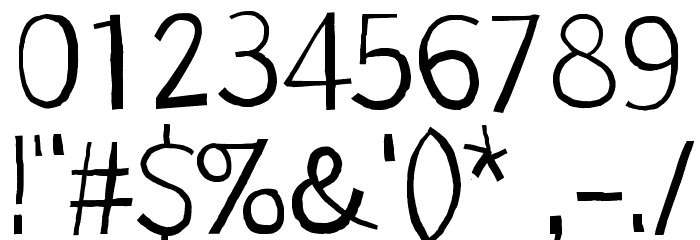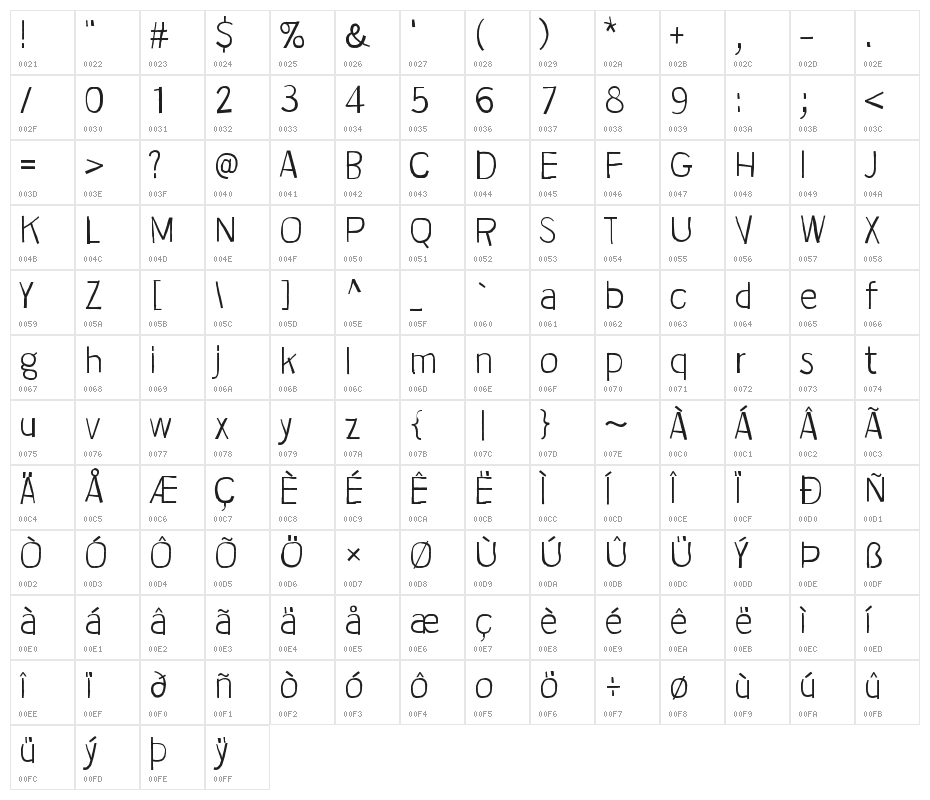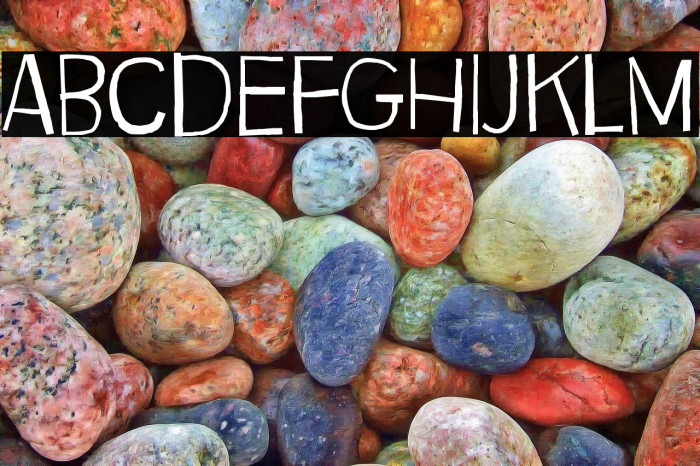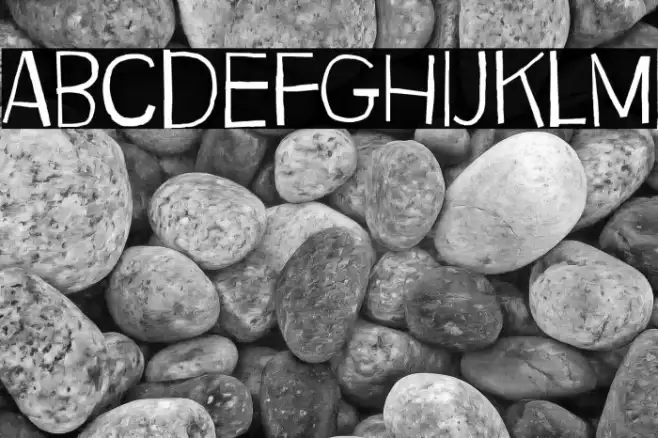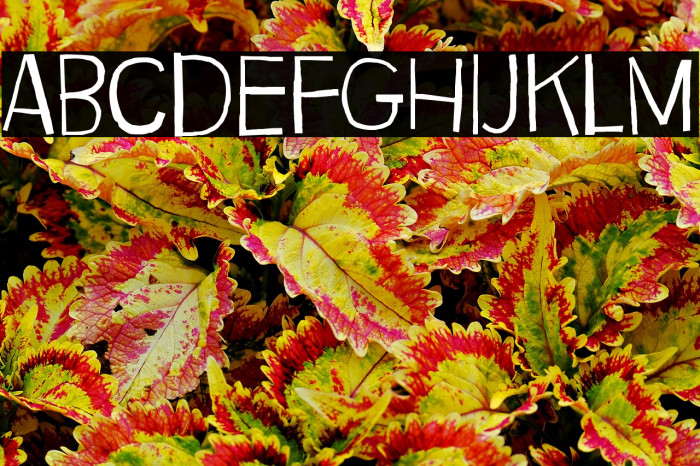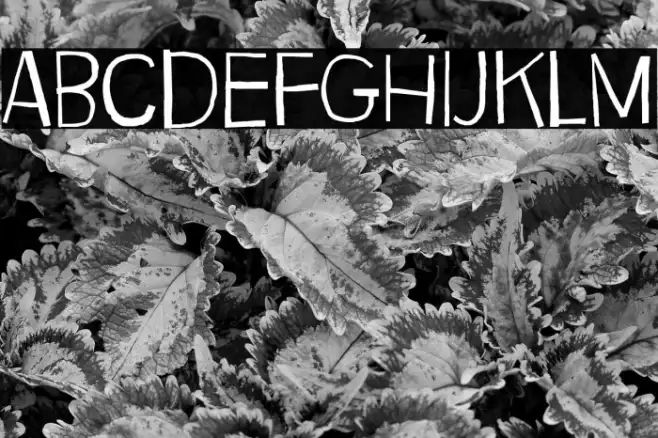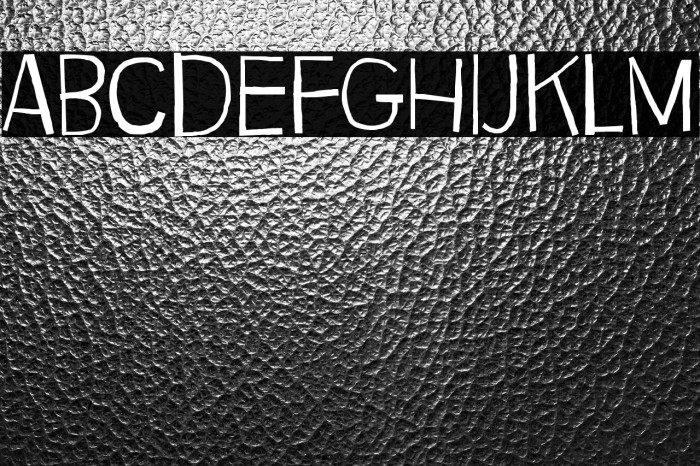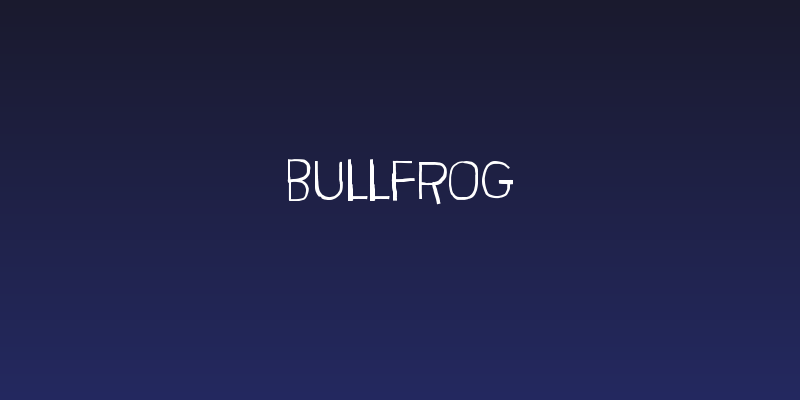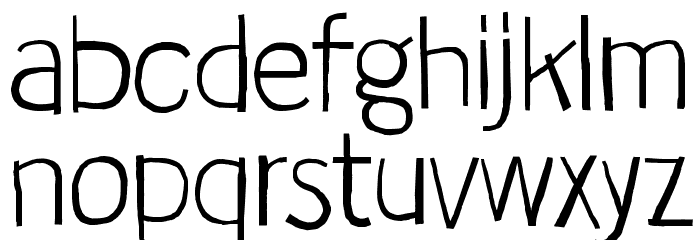
Bullfrog Font
Bullfrog Description
This font features a playful and slightly irregular design, characterized by its hand-drawn appearance. The letters have a whimsical quality, with varying stroke thicknesses that add a dynamic and lively feel. The uppercase and lowercase letters maintain a consistent style, with rounded edges and a slightly tilted orientation, giving them a casual and approachable look. The numerals and special characters follow the same design principles, ensuring a cohesive appearance across all glyphs. This font's unique style makes it suitable for projects that require a touch of creativity and informality.
| Proposed Projects | Ideal for children's books, creative posters, casual branding, and playful invitations. |